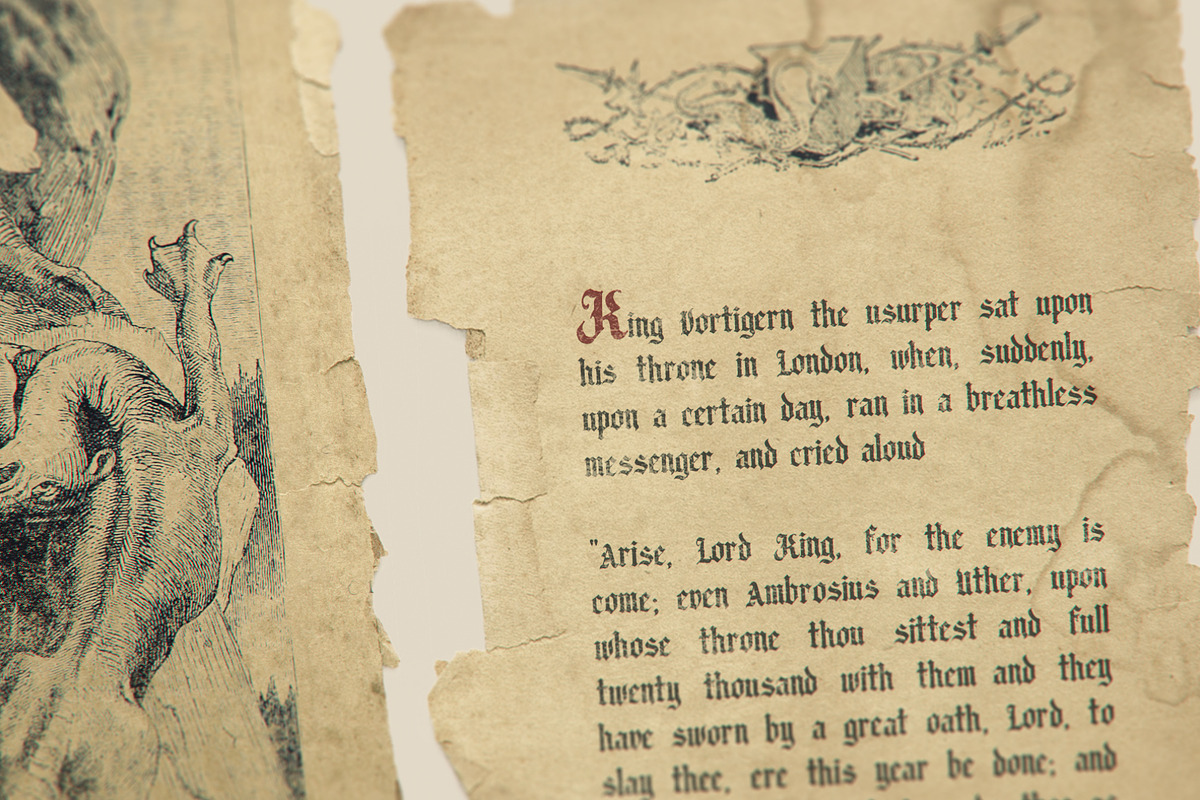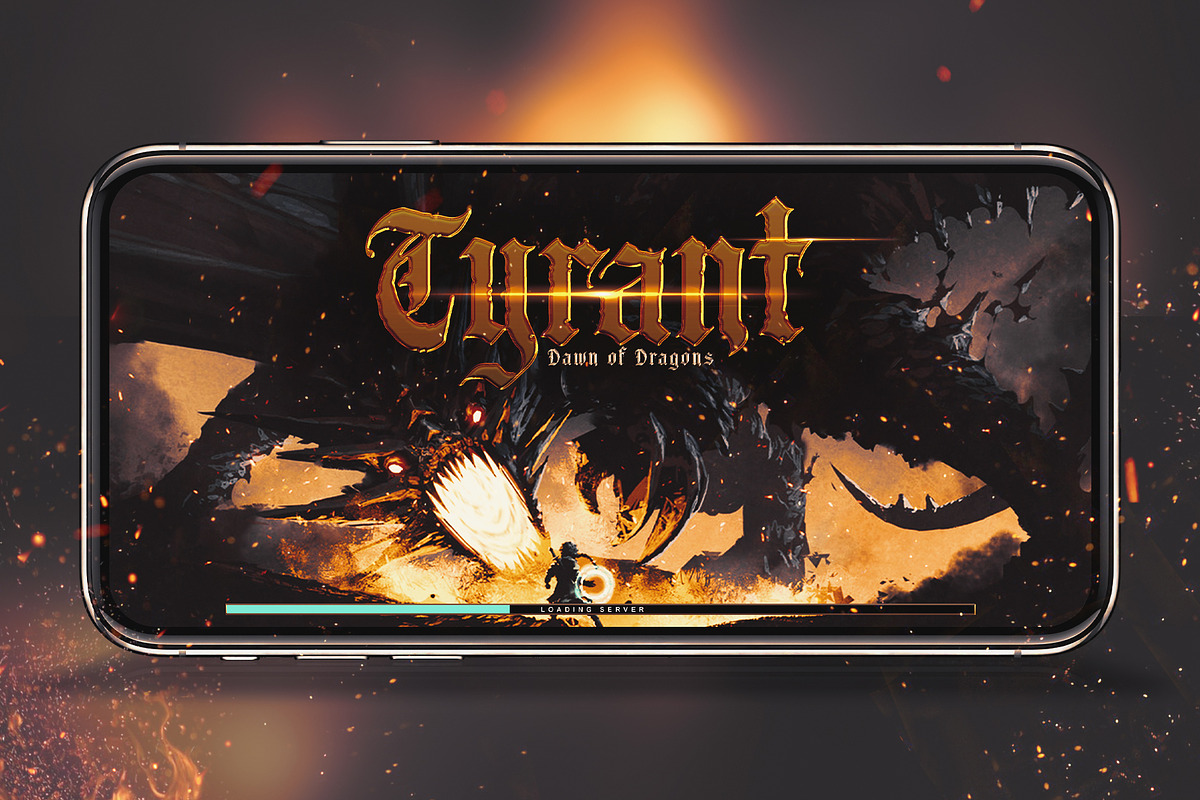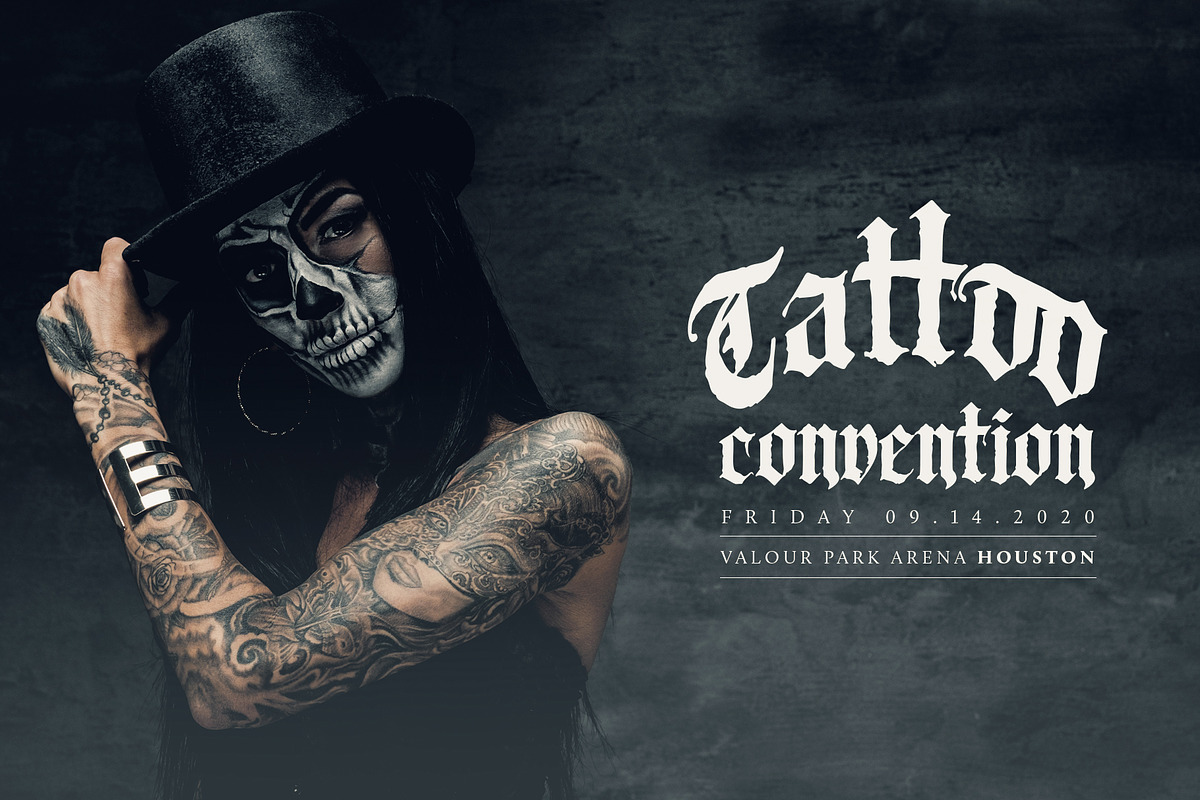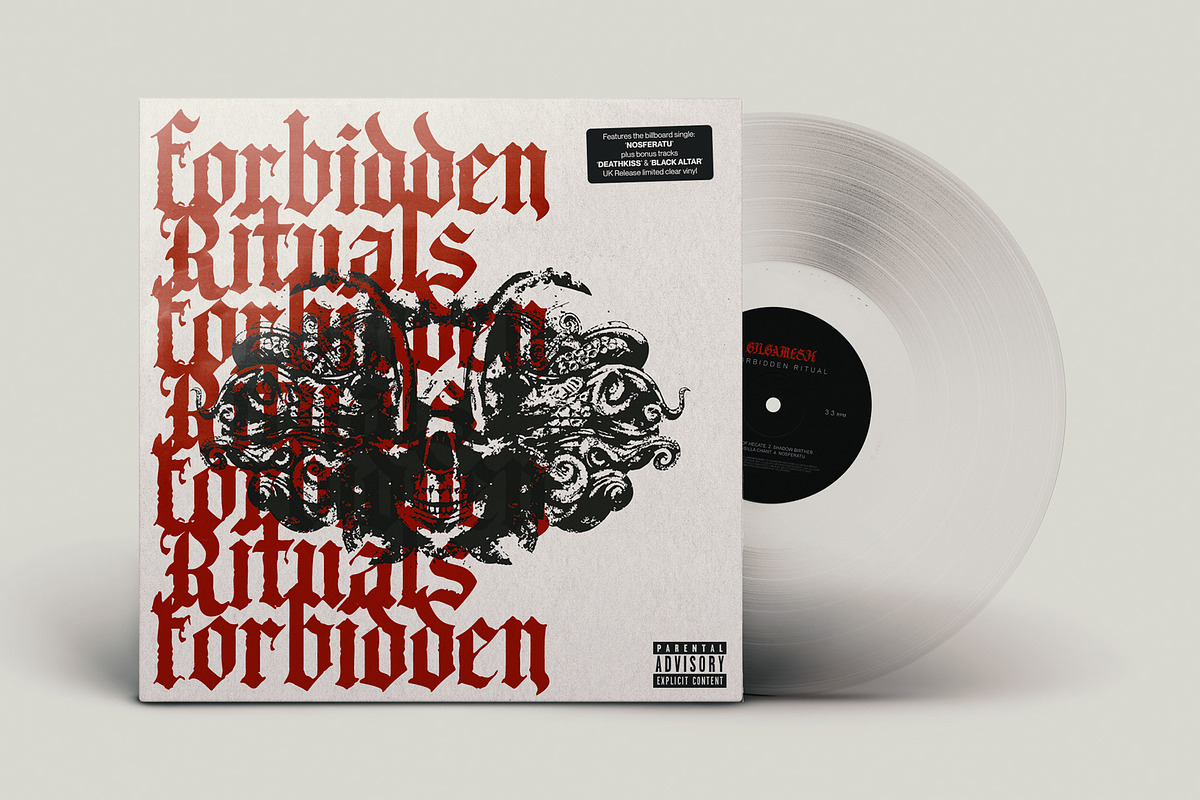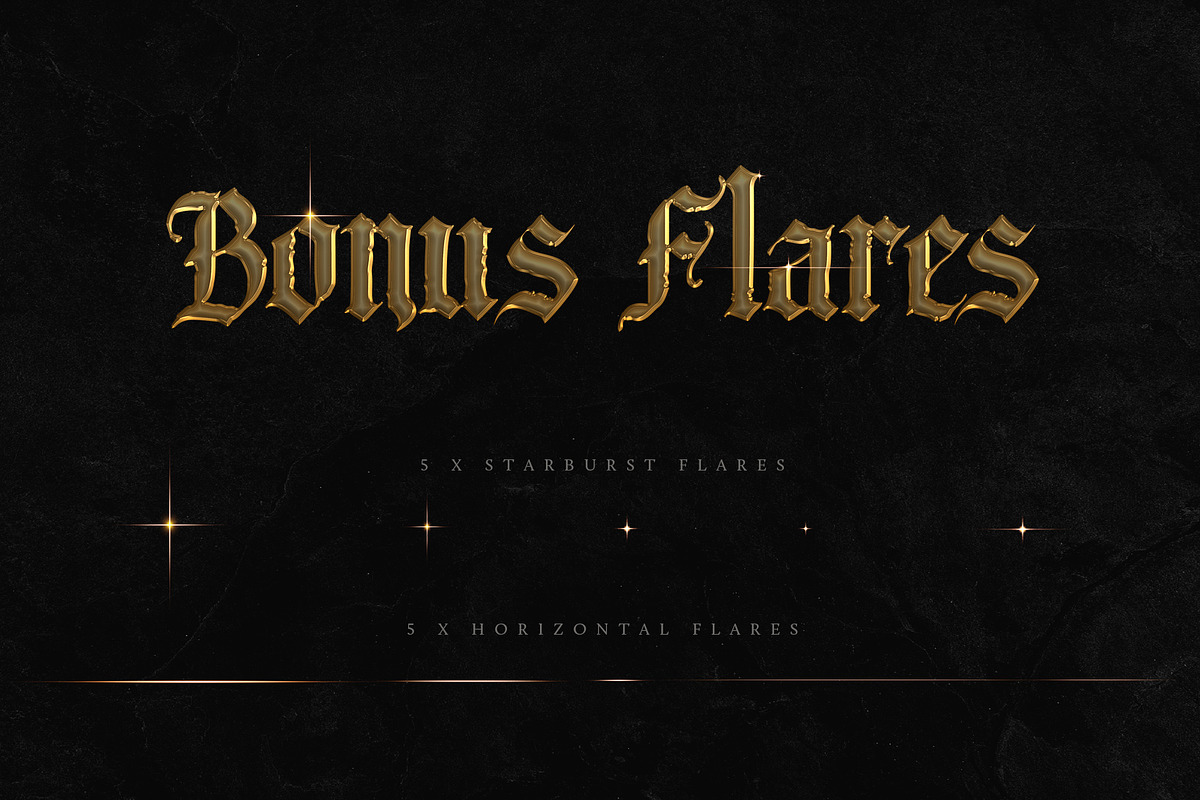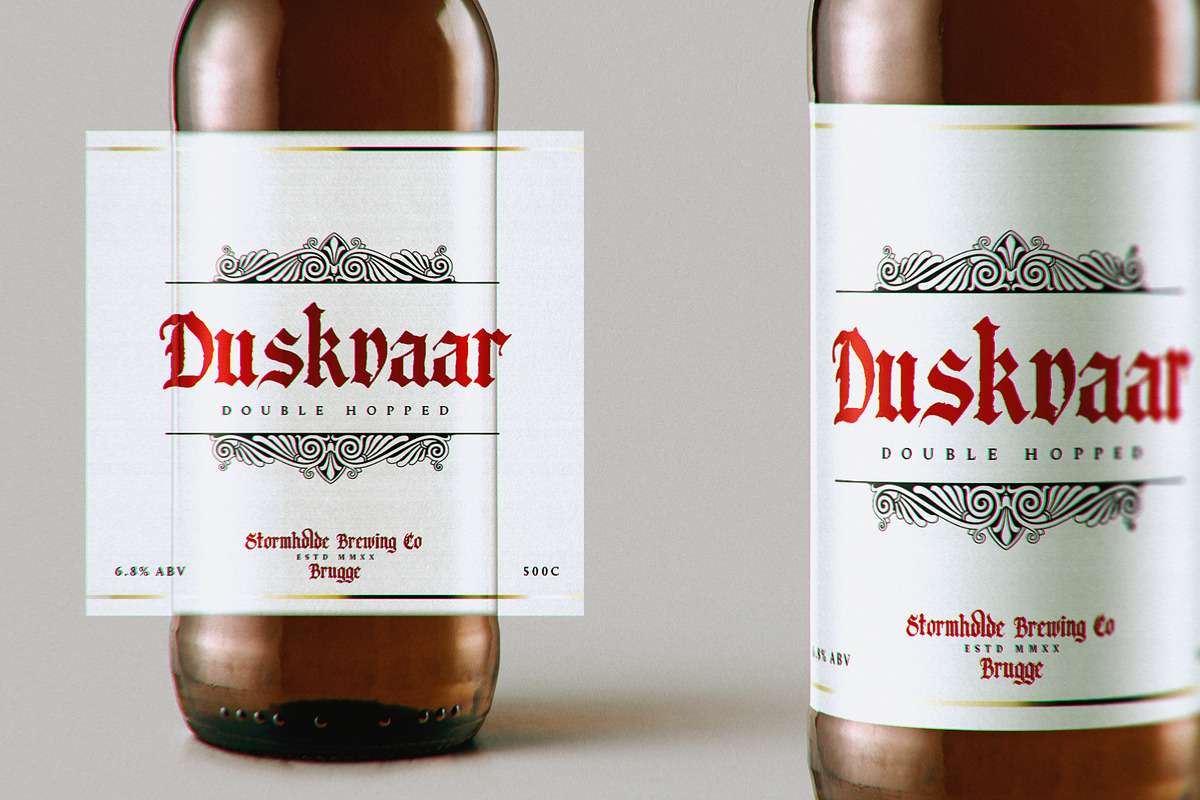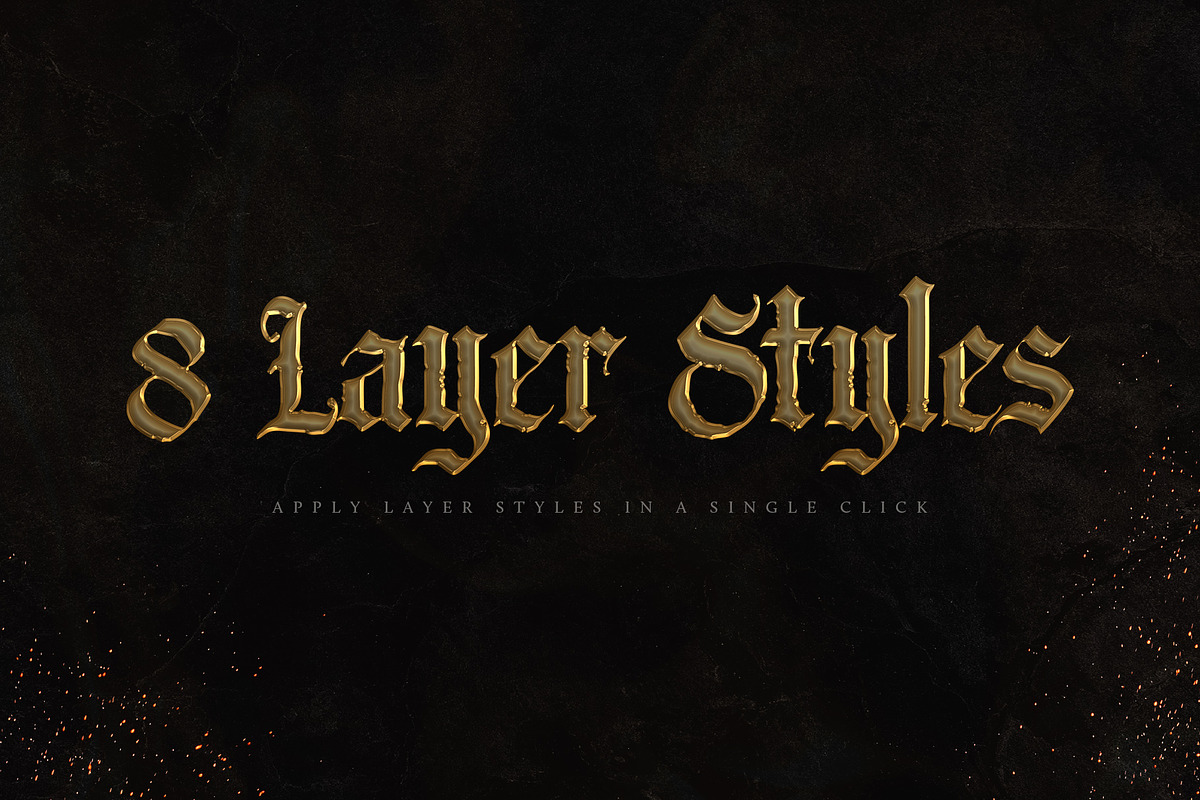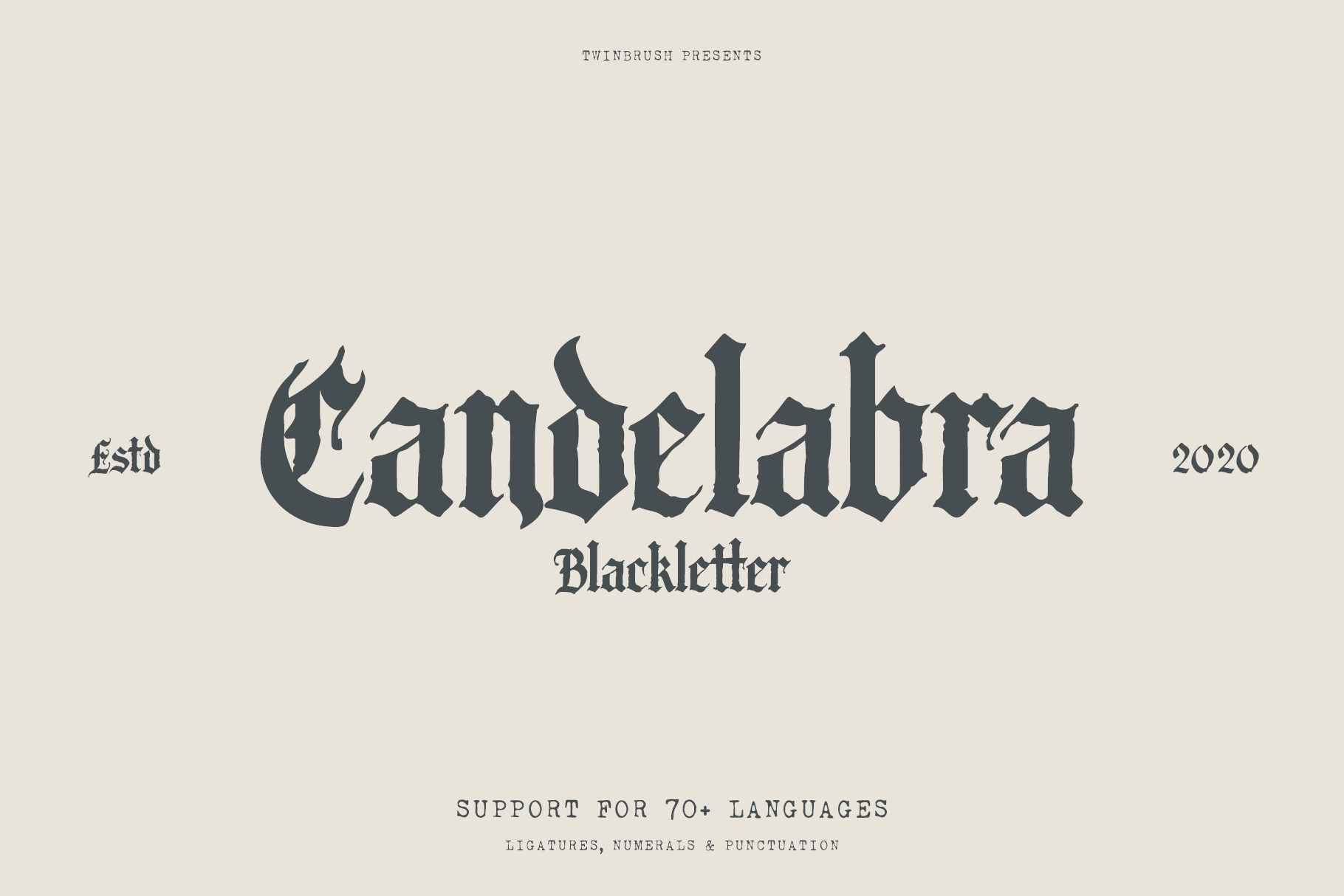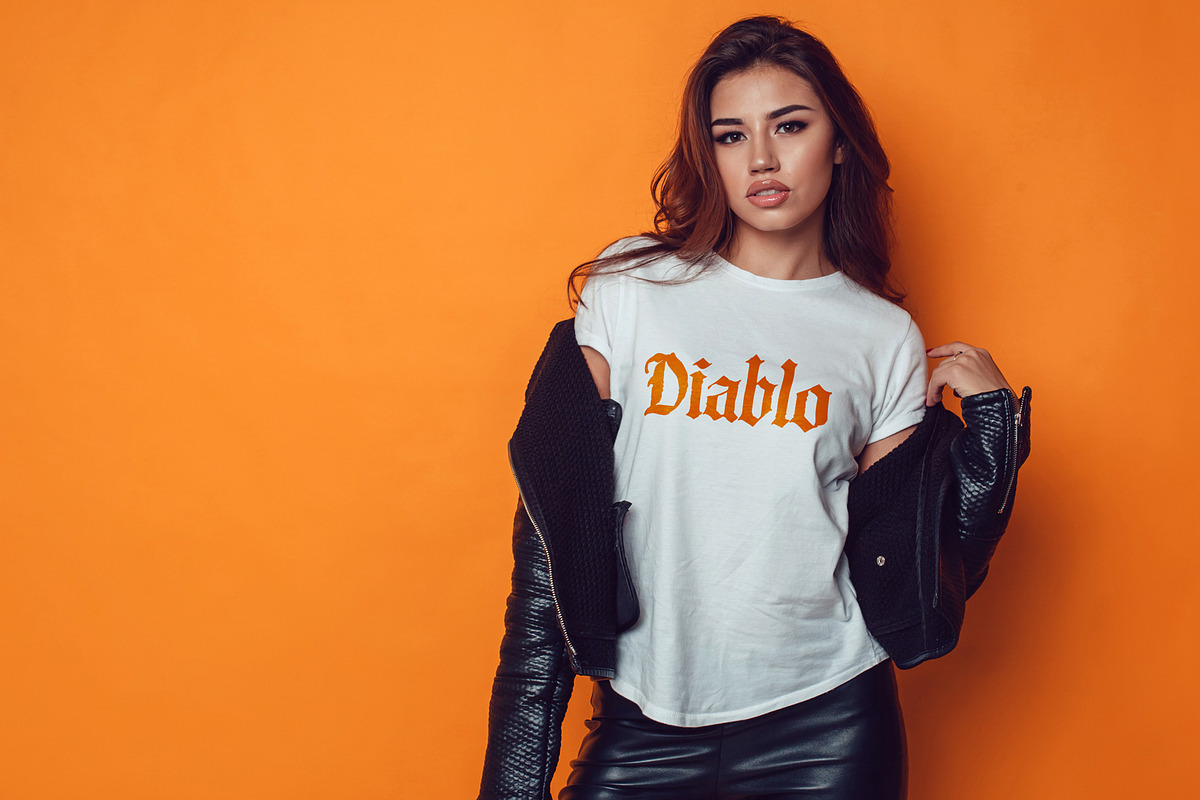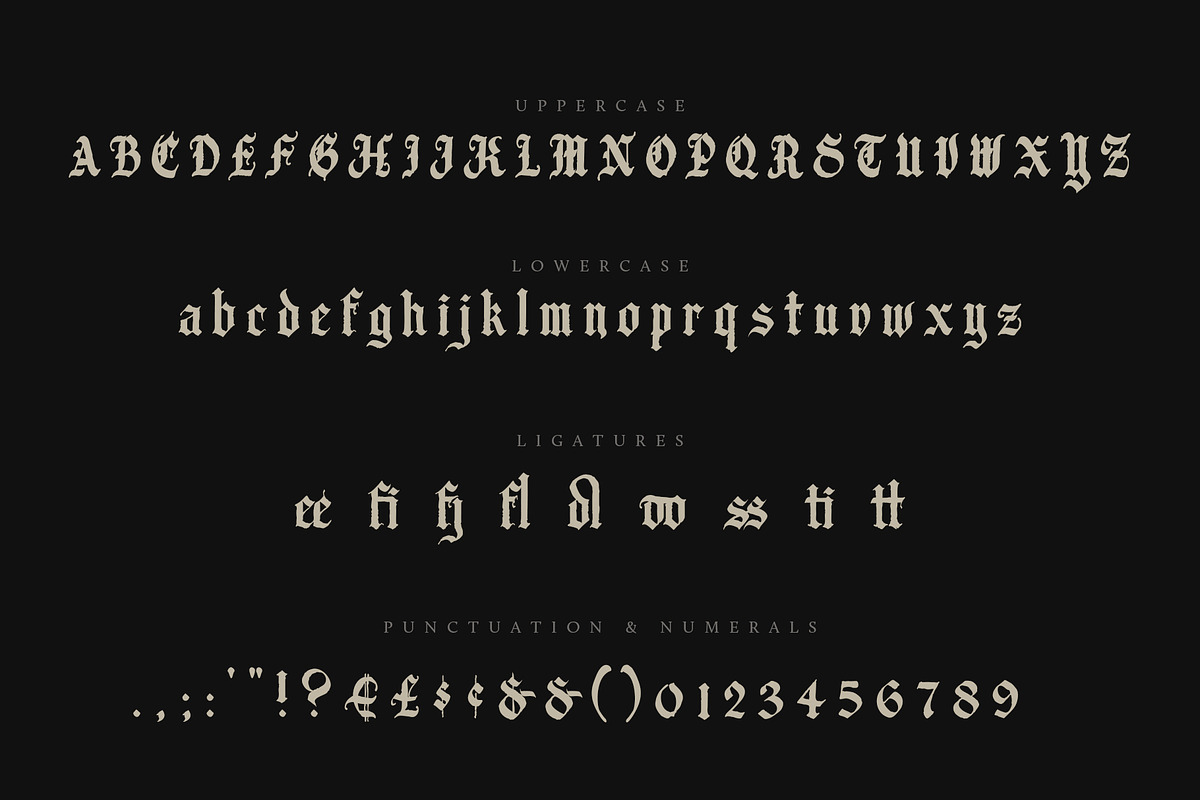
Candelabra Font + Extras
Introducing Candelabra, a gothic and fantasy inspired blackletter font. Letting out my inner nerd :P with this one!
Candelabra is a gothic blackletter font full of medieval mysticism and age. An ideal choice for tattoo studios, band logos and album art, trendy fashion apparel, book covers, game design, packaging design and more. Historical and modern aesthetics are both easily achieved with this personality rich font.
Upper and lowercase letters are included, along with ligatures, numerals and punctuation. (See preview image for the full character map.)
BONUSES As part of the download, I've included some bonus extras! A set of 8 high resolution layer styles are included. Simply change the text in the supplied .psd file and click on a layer style to apply it. The layer styles include; Aged Metal, Dull Gold, Bright Gold, Sword Steel, Tyrant Skin, Barbarian Flesh, Dragon Hide and Hell's Floor.
Also included are 10 flares (5 starburst and 5 horizontal) to add an extra glow and magical high specular highlight to your letters. These are supplied in a single .psd file with transparency.
- 10 Flares for adding a magical finishing touch.